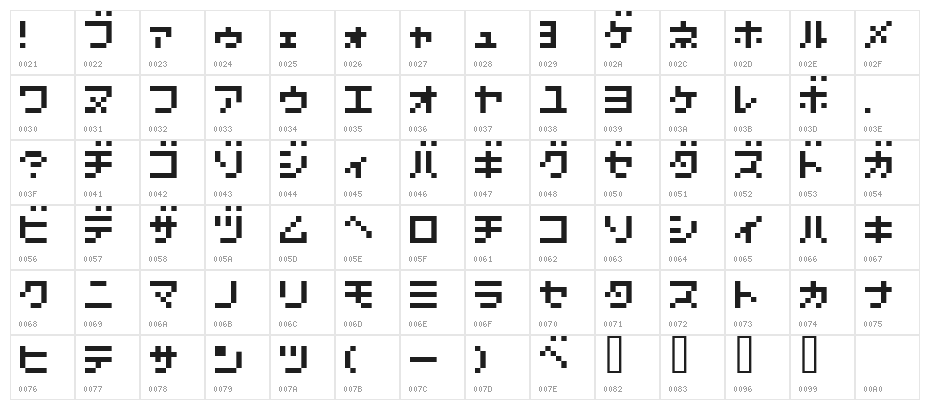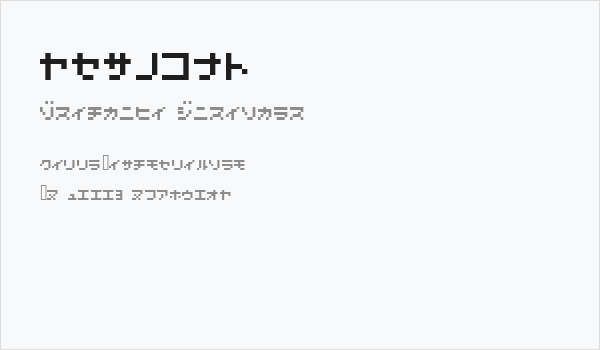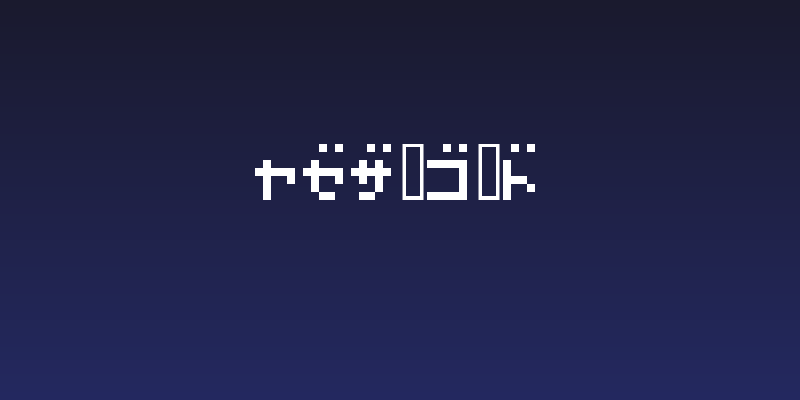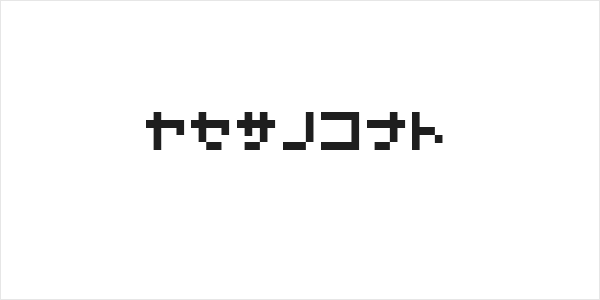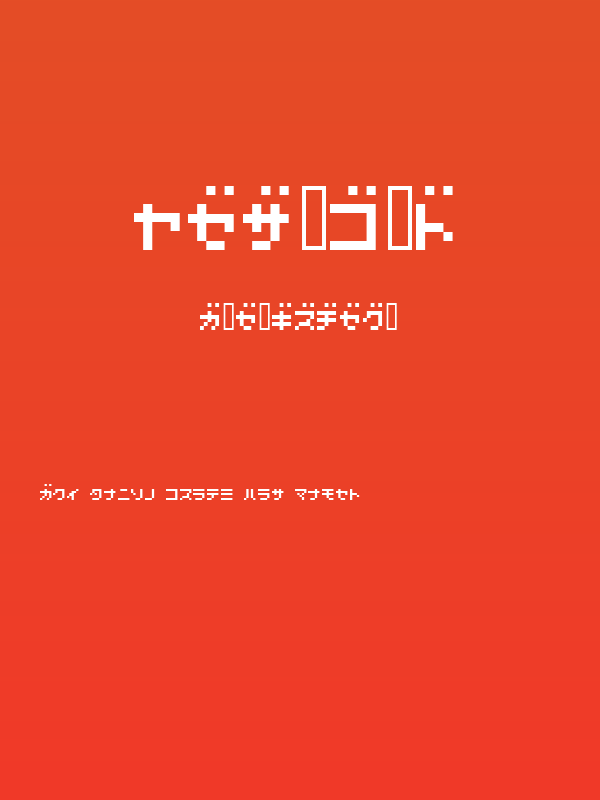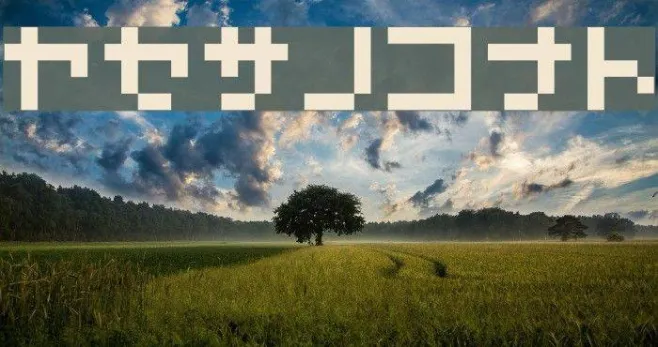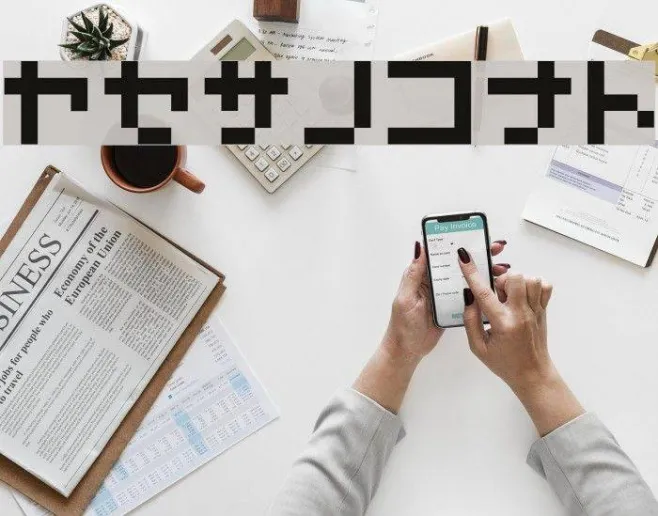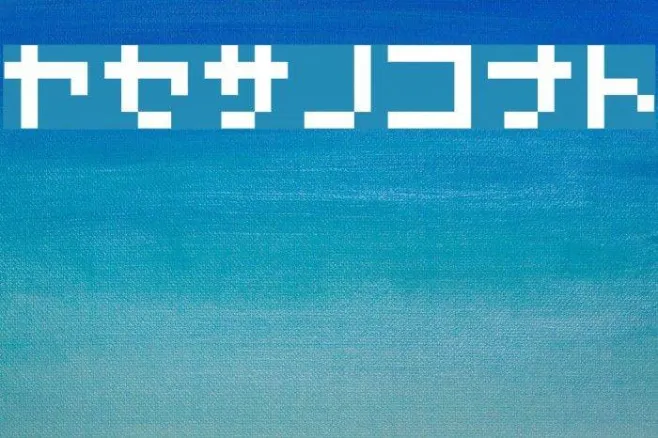
7pxkbus Font
7pxkbus Description
This font features a pixelated, blocky design reminiscent of early digital displays and retro video games. Each character is constructed from a grid of squares, giving it a distinctly geometric and modular appearance. The uniformity in stroke width across all characters contributes to a cohesive and structured look. The font's simplicity and clarity make it highly legible, even at smaller sizes. Its nostalgic aesthetic evokes a sense of vintage computing and digital nostalgia, making it ideal for projects that aim to capture a retro or tech-inspired theme.
| Proposed Projects | Ideal for retro video game designs, tech-themed posters, digital art projects, and any creative work that seeks to evoke a sense of nostalgia for early computing. |